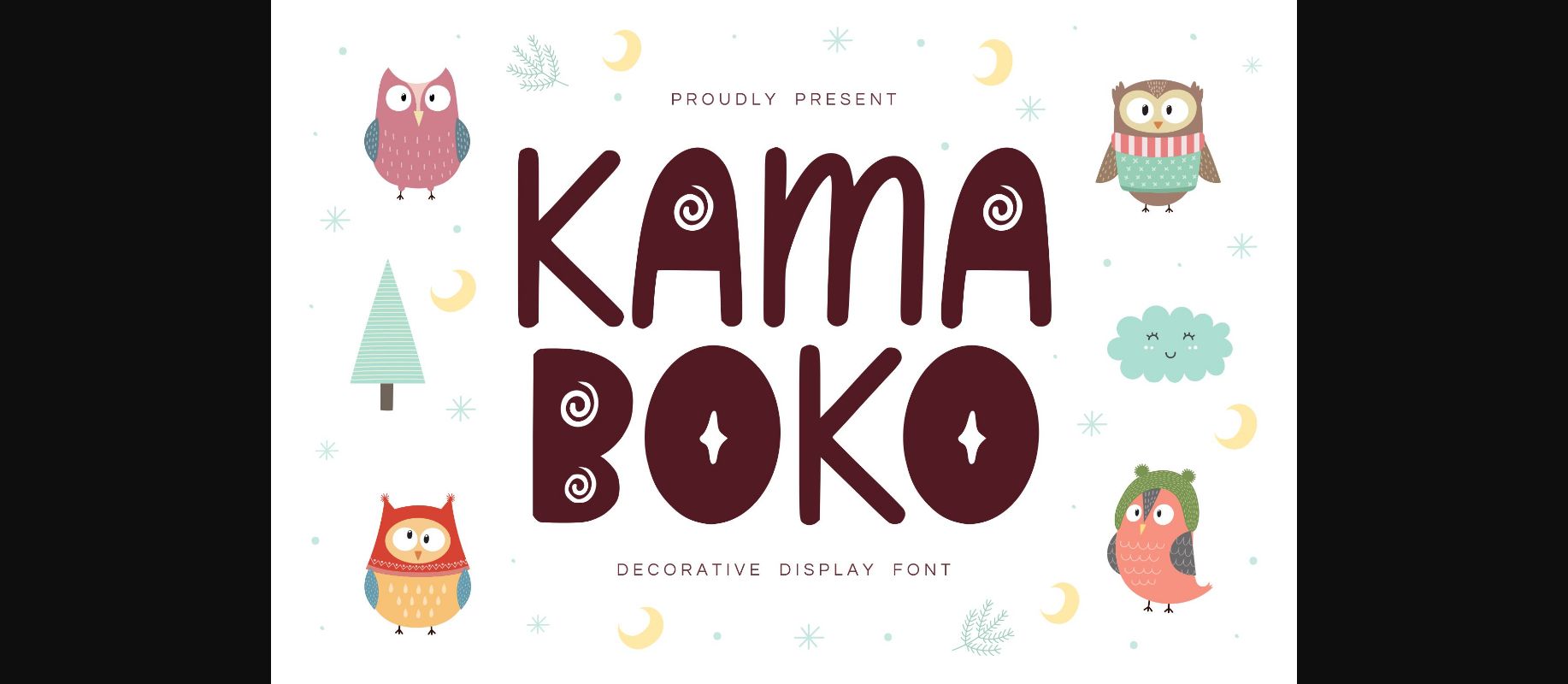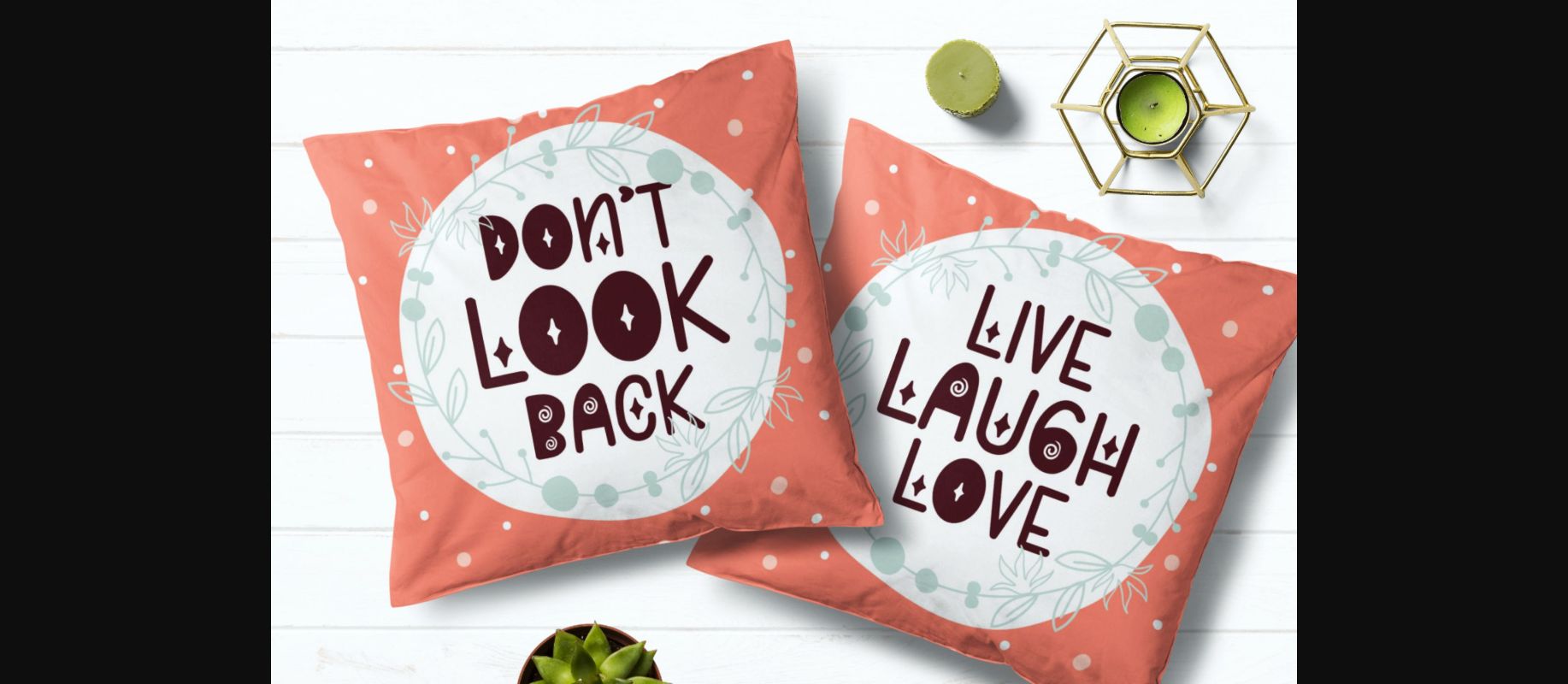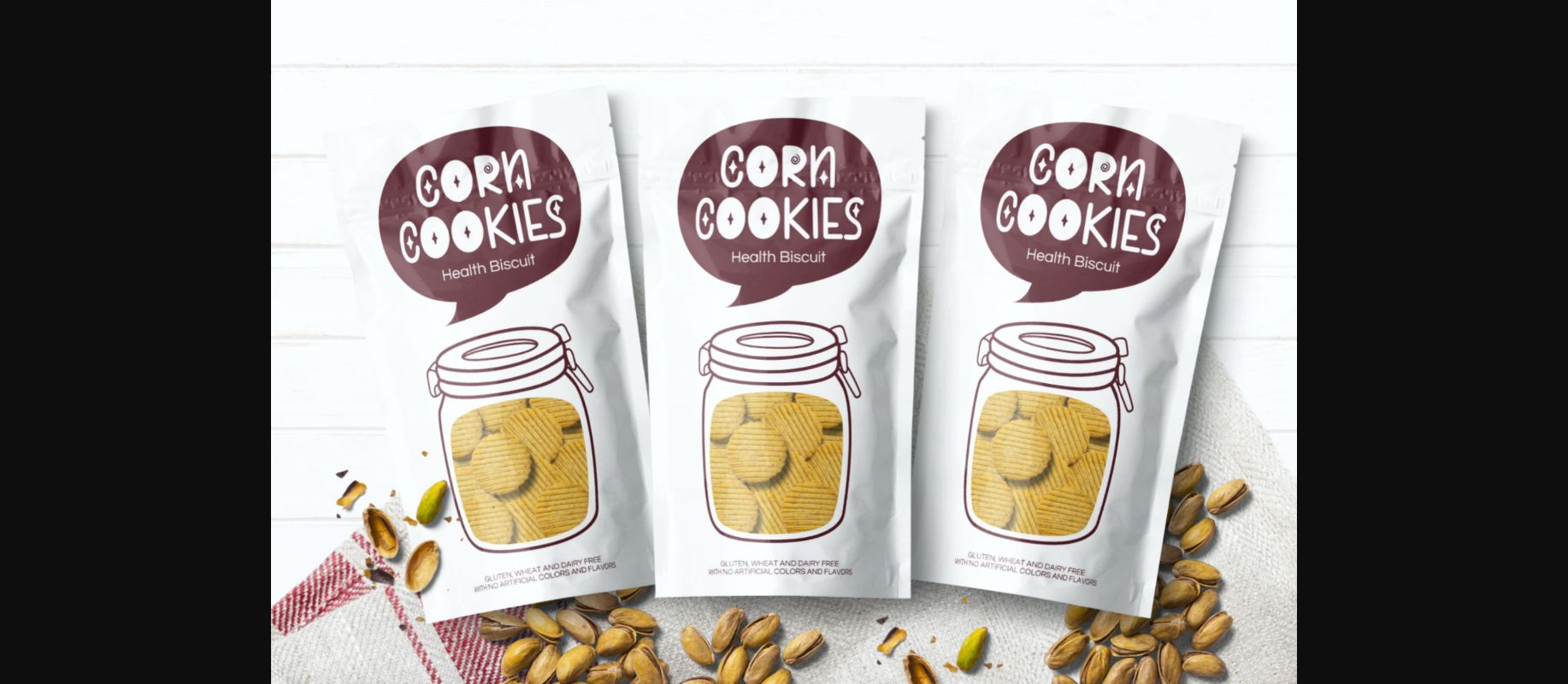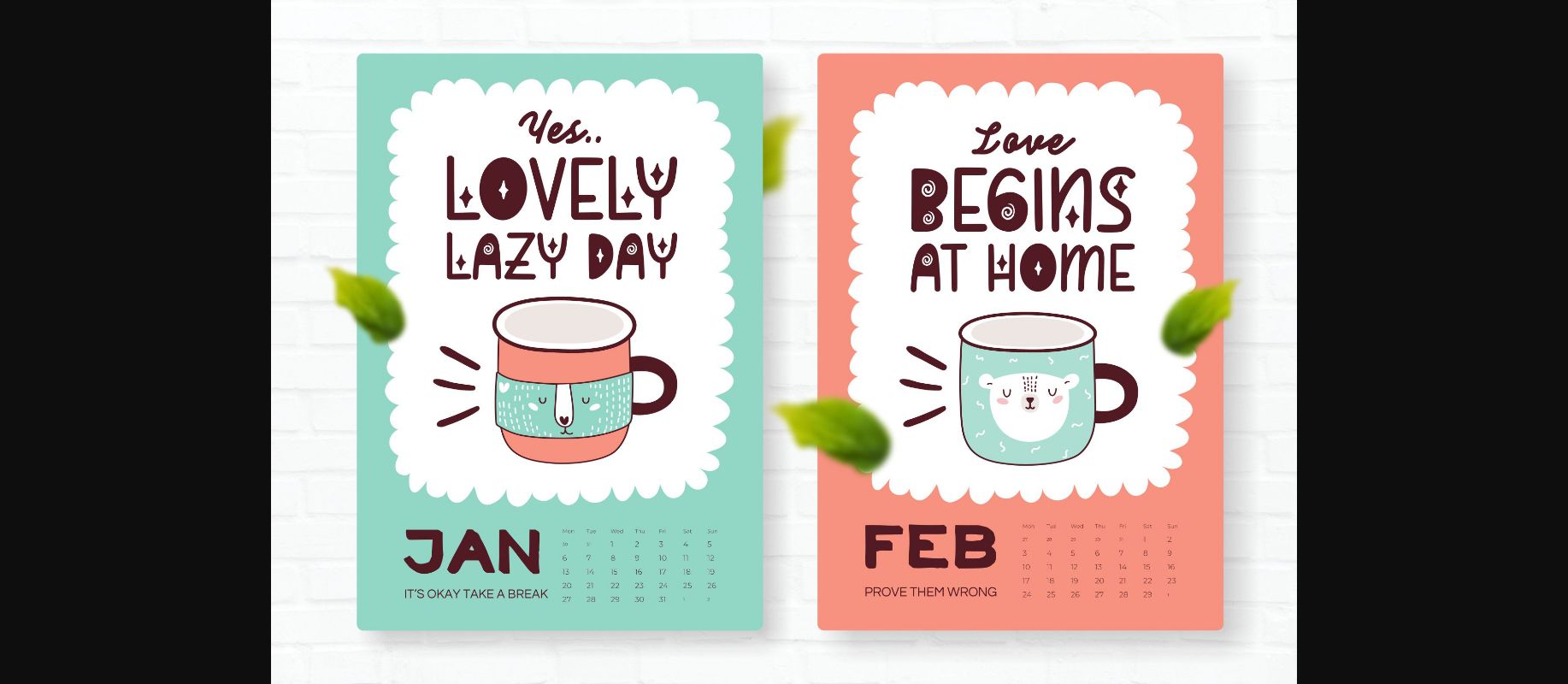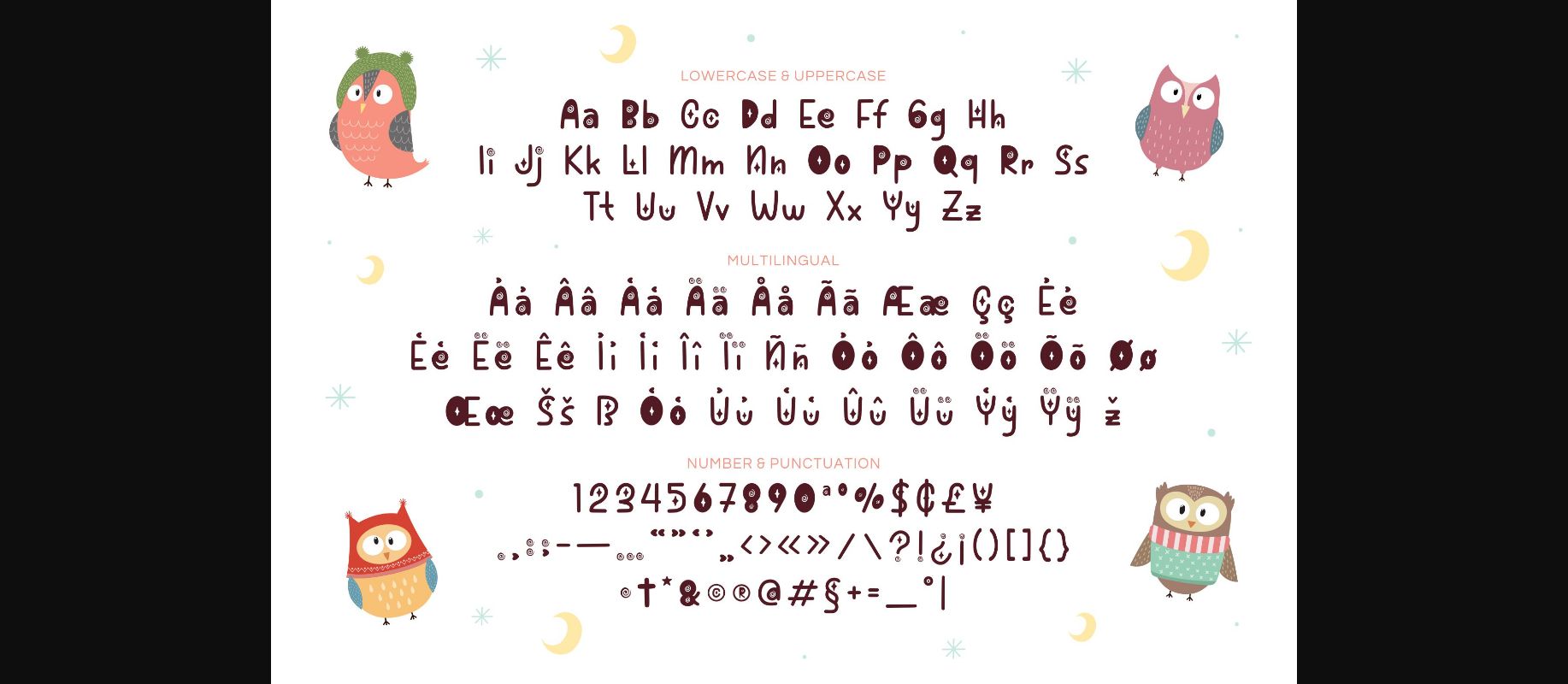
Kamaboko Font
About Kamaboko Font
Kamaboko is a sweet and tasty decorative font. This font is perfect for children themed designs, especially when combined with bright colors.